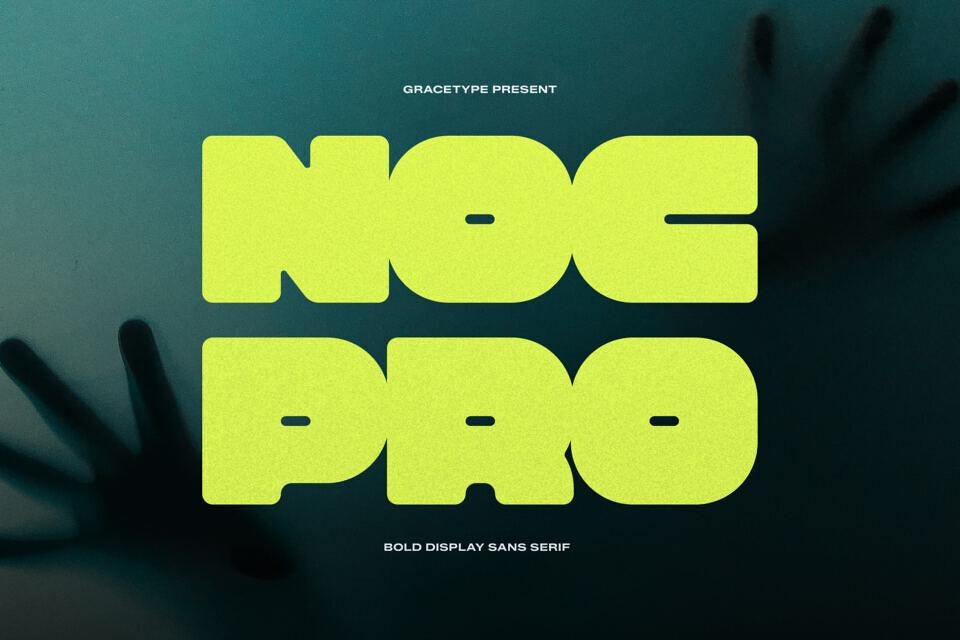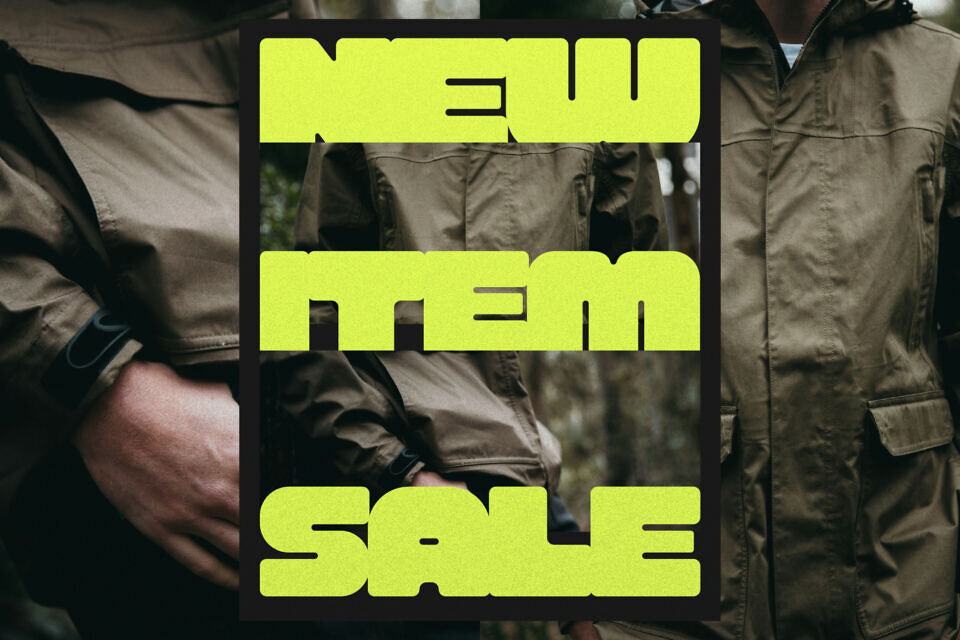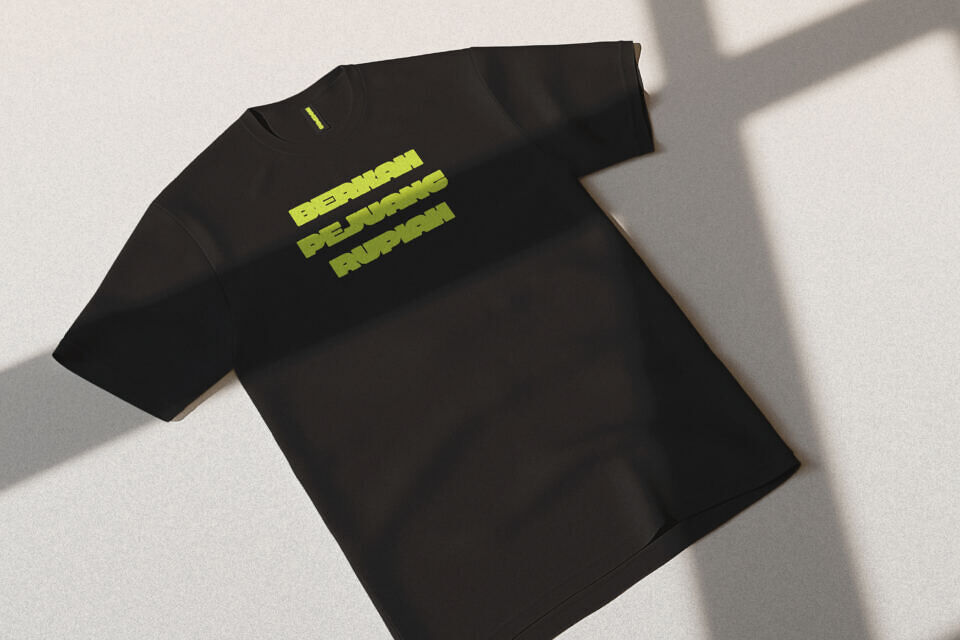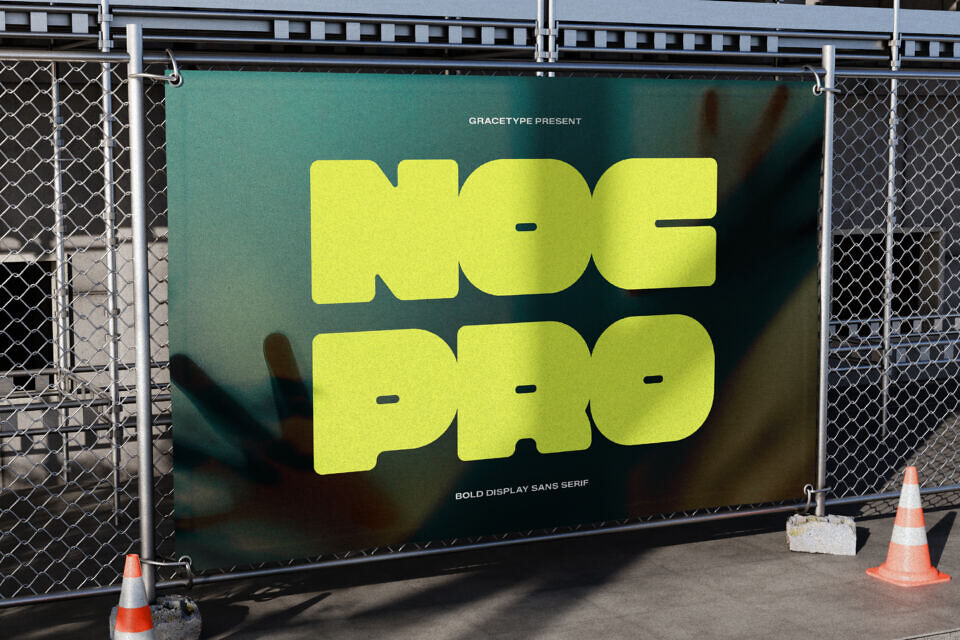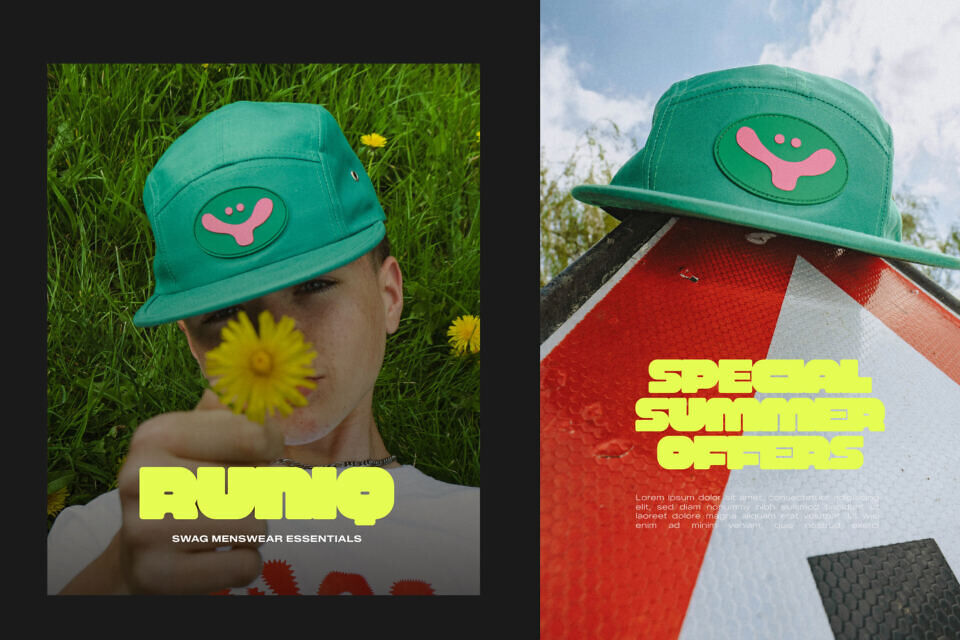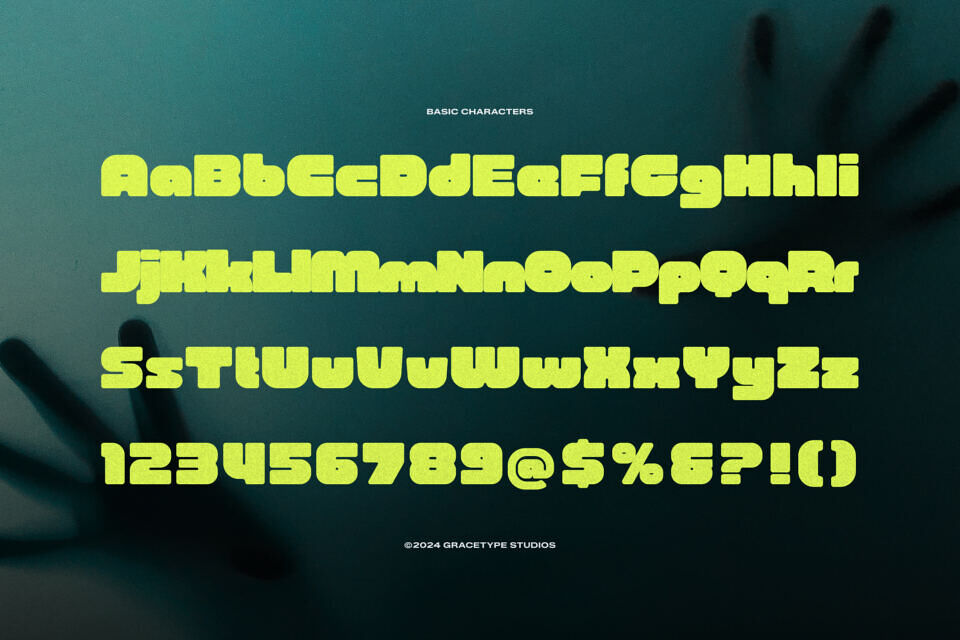
Make a heavy-hitting statement with Nocpro, a powerhouse bold display sans serif. This typeface is defined by its ultra-thick, blocky letterforms and minimalist negative space, creating a visual weight that is both industrial and futuristic.
With its tight apertures and rounded outer terminals, Nocpro balances raw power with a polished, modern finish. It is the premier choice for high-impact streetwear branding, cinematic sci-fi titles, electronic music event posters, and aggressive sports marketing.